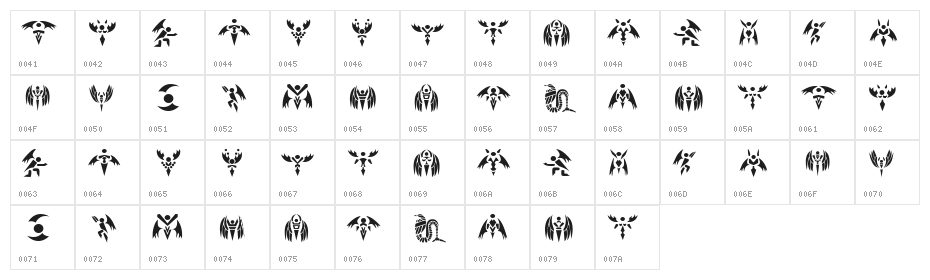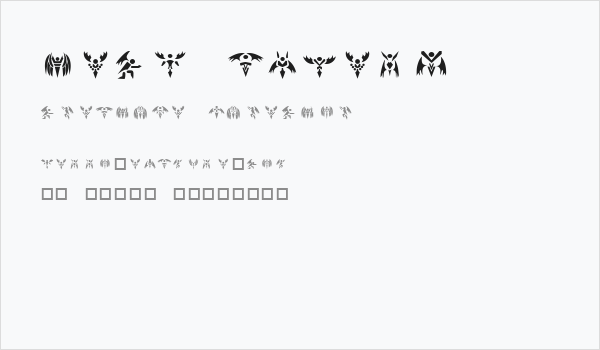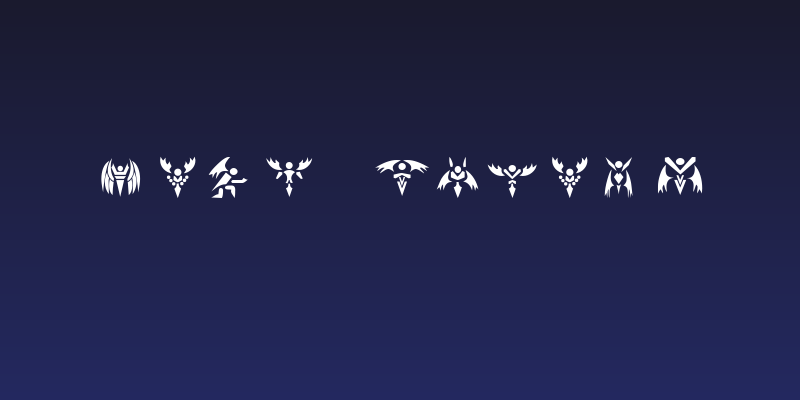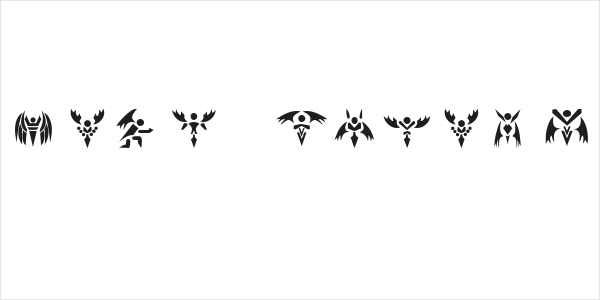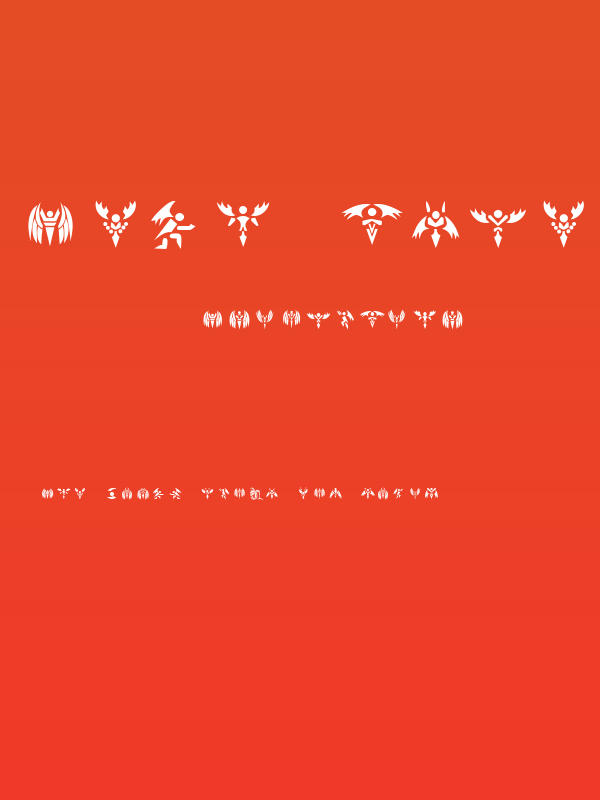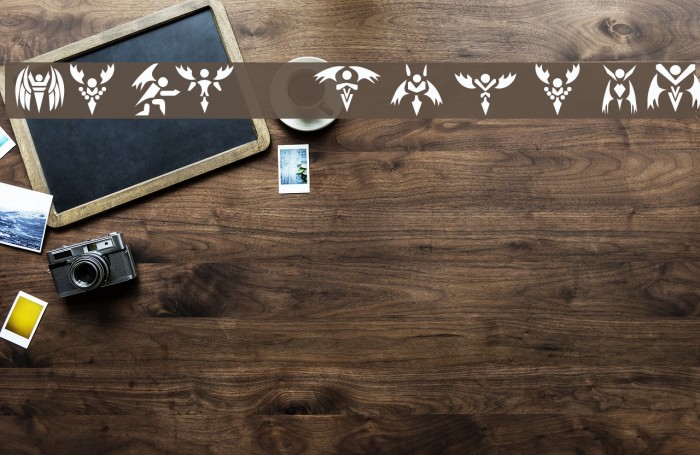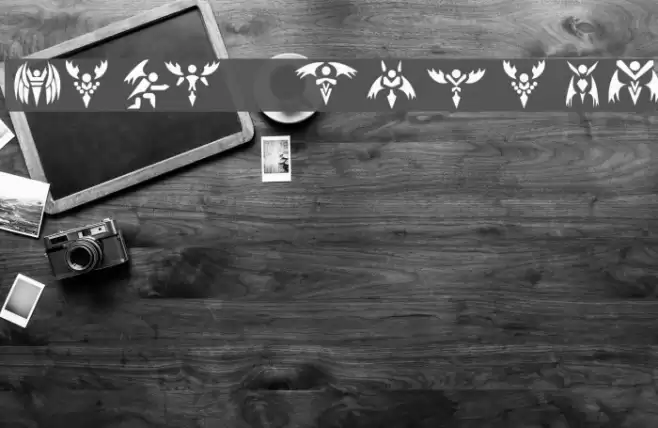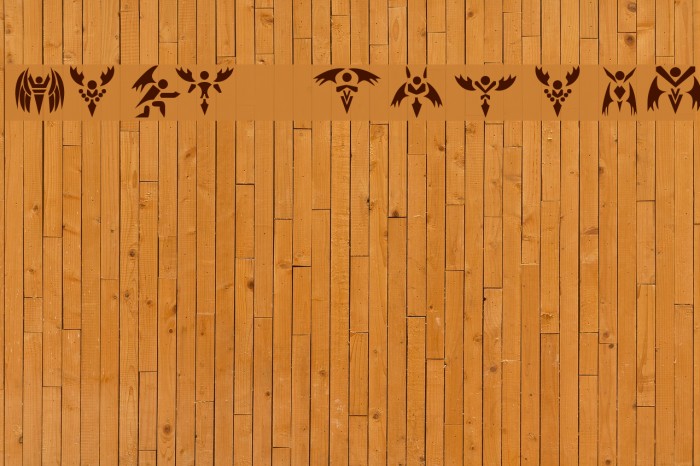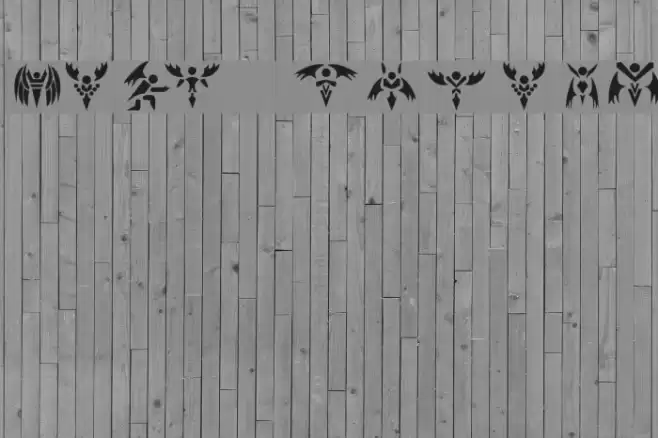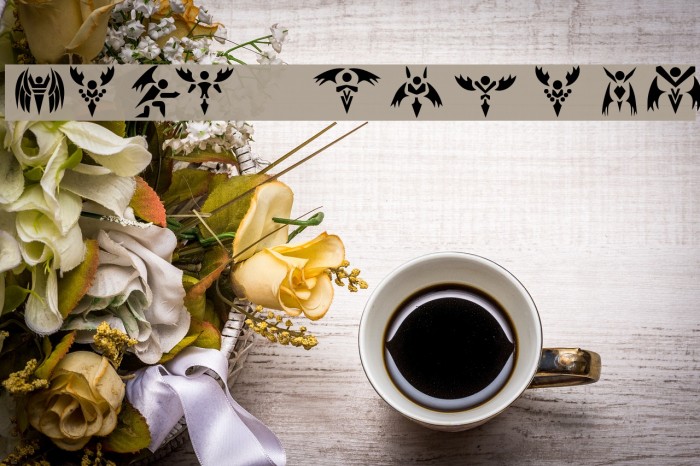
Tech Angels Font
Tech Angels Description
A decorative display font featuring abstract, symmetrical angelic or robotic winged figures for each character, with bold, geometric shapes and a futuristic, tribal aesthetic. The numerals and symbols are represented by solid outlined squares, maintaining the geometric theme.
| Overall Style | Futuristic, Decorative, Tribal |
| Use Case | Logos, Headlines, Posters, Branding |
| Proposed Projects | Logos, gaming titles, sci-fi posters, branding for tech or fantasy projects, decorative headings. |